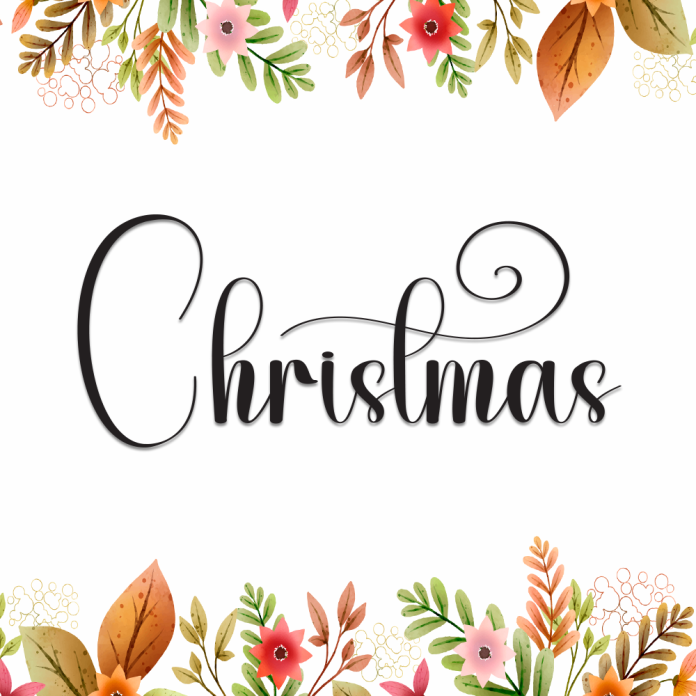
Christmas is a joyful and whimsical handwriting font designed to capture the magic of the holiday season. With its playful curves and festive charm, it adds a warm and cozy touch to any Christmas-themed design.
Perfect for greeting cards, holiday invitations, gift tags, social media posts, and seasonal branding.
Handwritten style with a festive spirit
Playful and cheerful letterforms
Great for winter celebrations and cozy designs
Celebrate the season in style with the heartwarming personality of Christmas font!